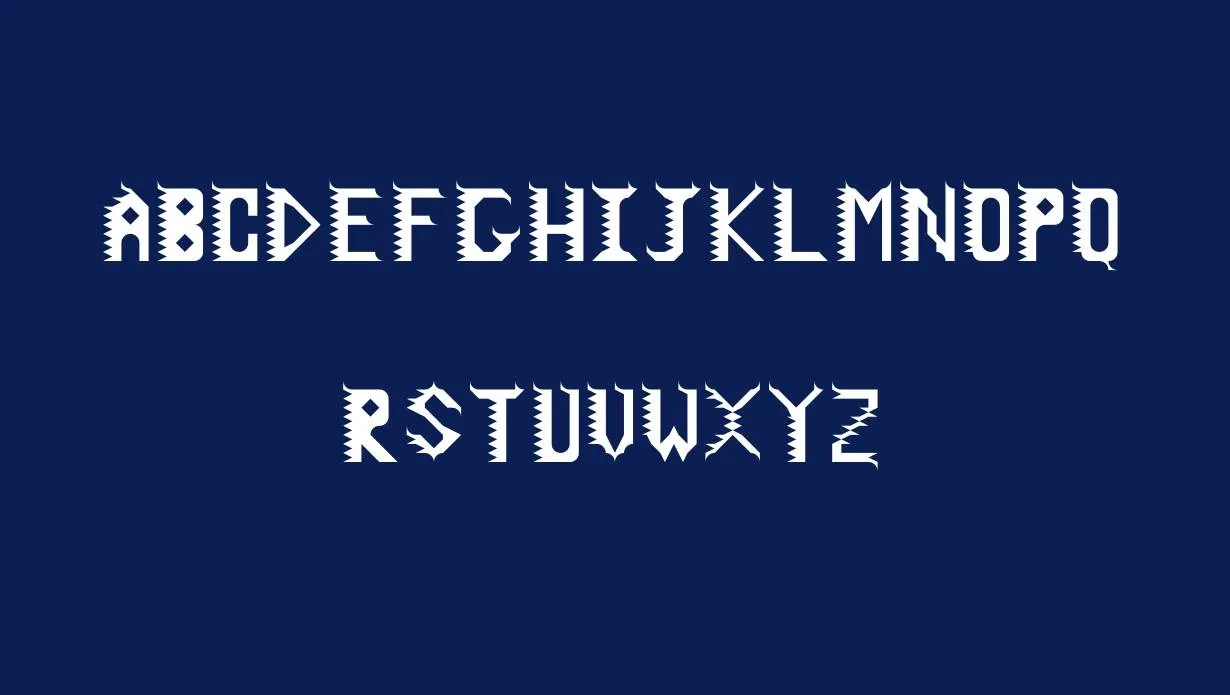
The Shark Bite font is bold and adventurous, perfect for making bold headers or titles in MS Word documents. Its unique look brings a rebellious edge to the text.
In Adobe Photoshop, Shark Bite is suitable for designs that need an edgy and unconventional look, making a bold statement in logos or graphics. Its sharp and daring style adds a sense of rebellion to any design.